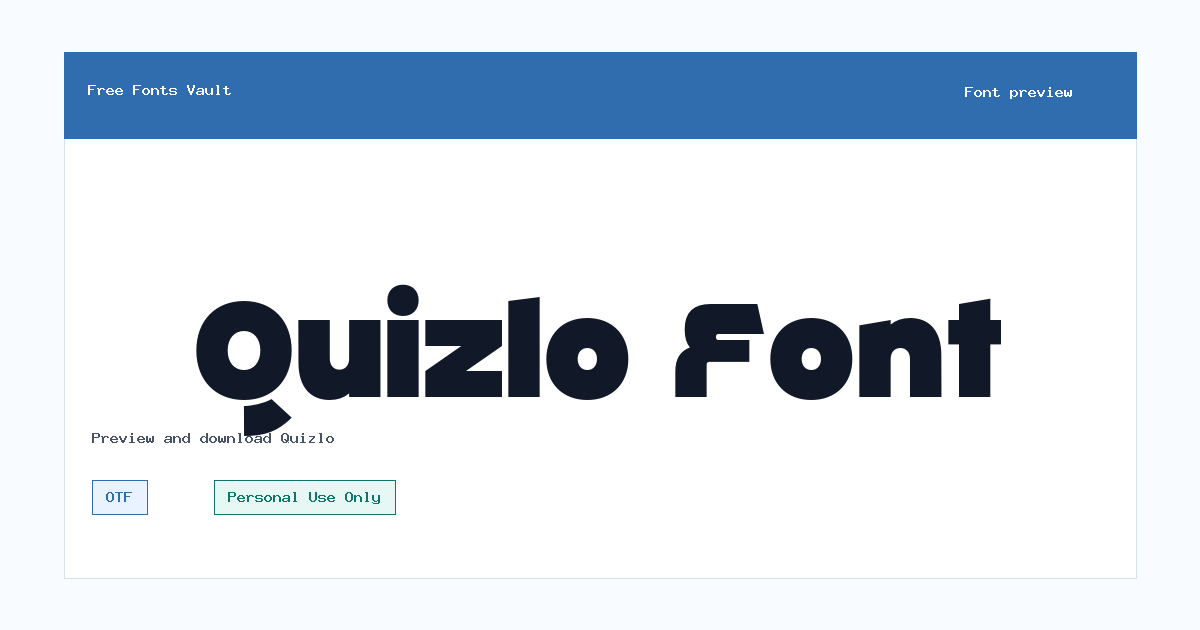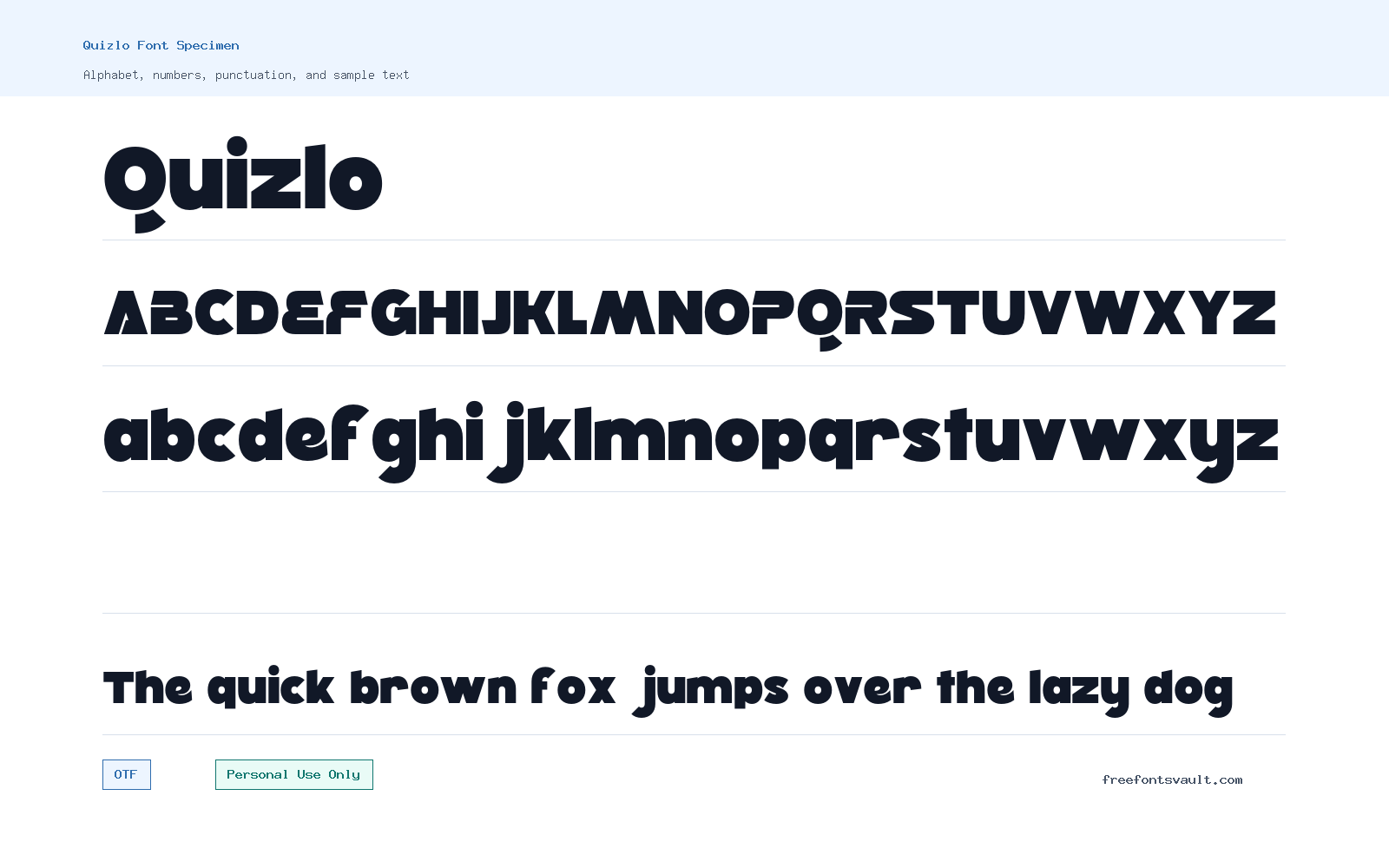
Quizlo
- Designer Jamaludin Ahmad Sahestya Dharma
- Foundry Pandeka Studio
Quizlo font.
Quizlo is a sans serif font with a clean demo OTF file for personal design experiments, previews, and non-commercial layouts. It is best approached as a display-friendly typeface to test in short text before using it in a finished project.
About Quizlo Font
For best results, test Quizlo in the exact words you plan to use. Sans serif fonts can look very different across all-caps titles, mixed-case headings, short labels, and longer text blocks. Start with logos, social graphics, presentation titles, website hero text, or poster headlines, then check spacing at small sizes before using it for menus, paragraphs, or dense information. If the letters feel tight in your layout, add a little tracking or pair it with a quieter body font for readability.
- Sans serif style for clean titles, previews, and short text layouts
- Personal mockups, posters, social graphics, and headline tests
- Logo drafts, presentation titles, and non-commercial design experiments
Quizlo is credited to Jamaludin Ahmad Sahestya Dharma, with Pandeka Studio listed as the foundry.
Who designed Quizlo?
Quizlo is credited to Jamaludin Ahmad Sahestya Dharma, with Pandeka Studio listed as the foundry.
What is Quizlo best used for?
Use it for personal previews, short headings, poster concepts, logo drafts, and social media design tests. Check readability carefully before using it in longer text.